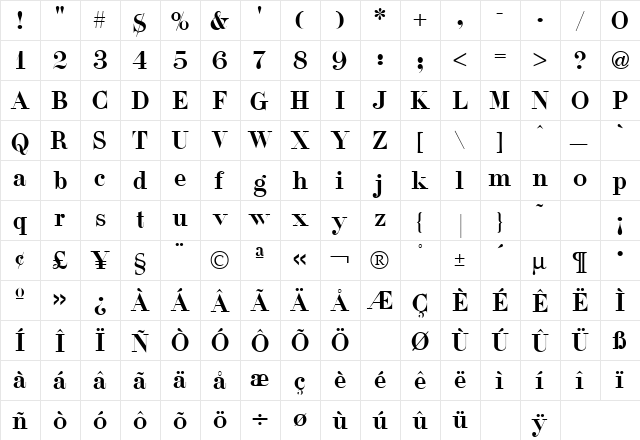
Didi Regular
Design Context for Didi Typeface
Didi offers clean, dependable letterforms without strong stylistic allegiance, making it a practical choice for designers who need flexibility.